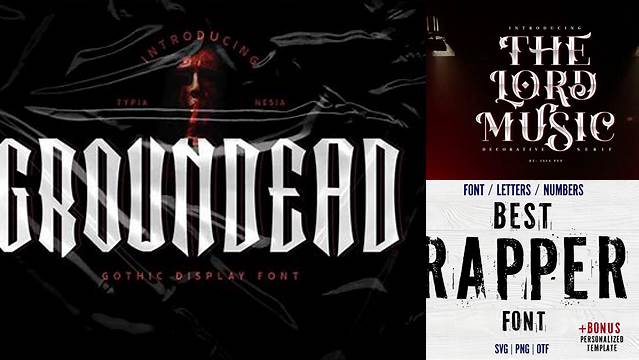
Coolest Fonts For Rap Music Videos: Font Guide
Hey guys! Ever wondered what makes a rap music video pop? It's not just the beats and rhymes; it's also about the visuals, and fonts play a huge role in that. Choosing the right font can make your video look professional, edgy, or just plain awesome. Let's dive into the world of rap music video fonts and see what makes them tick. We're going to cover everything from classic choices to the latest trends, so you'll be ready to pick the perfect font for your next banger.
Why Fonts Matter in Rap Music Videos
Fonts might seem like a minor detail, but trust me, they're not. The fonts you choose set the tone and mood of your video. A bold, aggressive font can amplify the energy of a hard-hitting track, while a sleek, modern font can complement a more sophisticated vibe. Think about it: the right font can make your lyrics hit harder, your visuals look cleaner, and your overall message resonate better with your audience. Plus, let's be real, nobody wants to see a killer rap video with a wimpy, uninspired font. It's like showing up to a battle with a butter knife – not a good look! So, pay attention to your fonts, guys. They can make or break your video.
Best Fonts for a Hip-Hop Aesthetic
When it comes to hip-hop, certain fonts just scream authenticity. Think about the classic graffiti fonts, the bold sans-serifs, and the gritty, textured typefaces. These fonts have been used in countless iconic rap videos and album covers, and they continue to be a go-to choice for artists looking to capture that raw, streetwise energy. We're talking about fonts that feel like they were ripped straight from a subway wall or a boombox. They're bold, unapologetic, and full of attitude. Some great examples include Impact, Bebas Neue, and anything with a distressed or urban feel. These fonts instantly connect your video to the roots of hip-hop culture.
Graffiti Fonts: Capturing Street Art
Graffiti fonts are the OG of rap aesthetics, straight from the streets to your screen. They bring that raw, rebellious energy that hip-hop was built on. Think wildstyle, block letters, and dripping paint – these fonts aren't just text; they're art. When choosing graffiti fonts, consider how legible they are. You want something that looks cool but is still readable. Some popular choices include Ruthless, Subway Sign, and Urban Decay. Use these fonts for titles, artist names, or key lyrics to give your video that authentic street vibe. Remember, graffiti fonts are all about making a statement, so don't be afraid to go bold and expressive.
Bold Sans-Serif Fonts: Modern and Impactful
If you're aiming for a modern, impactful look, bold sans-serif fonts are your best friend. These fonts are clean, strong, and easy to read, making them perfect for conveying a clear message. Think of fonts like Bebas Neue, Montserrat, and Open Sans Extra Bold. They're versatile enough to work in a variety of settings, from title cards to lower thirds. The key is to choose a font that's both visually appealing and highly legible, ensuring your audience can easily grasp your message. Bold sans-serif fonts are also great for creating a sense of authority and confidence, which is perfect for tracks with a powerful message.
Distressed and Textured Fonts: Adding Gritty Realism
To add a touch of gritty realism to your rap video, distressed and textured fonts are the way to go. These fonts look like they've been through the wringer, with rough edges, faded textures, and imperfections that add character. They're perfect for conveying a sense of struggle, resilience, or authenticity. Think of fonts that look like they've been stamped, scratched, or weathered. Some great options include Stencil, Grungy, and Cracked. Use these fonts sparingly to highlight key words or phrases, creating a powerful visual impact.
Modern and Minimalist Fonts for Edgy Rap Videos
For those aiming for a sleek and edgy vibe, modern and minimalist fonts are the perfect choice. These fonts are all about simplicity, clean lines, and understated elegance. Think of fonts like Helvetica, Arial, and Futura. They're versatile enough to work in a variety of contexts and can create a sense of sophistication and confidence. Use them for artist names, titles, or lower thirds to give your video a polished and professional look. The key is to choose a font that's both visually appealing and highly legible, ensuring your message comes across clearly.
Choosing Fonts for Different Rap Subgenres
Rap isn't just one thing; it's a diverse genre with tons of subgenres, each with its own unique vibe. The fonts you choose should reflect that. For trap music, think bold, futuristic fonts that capture the genre's high-energy, electronic sound. For conscious rap, consider clean, legible fonts that emphasize the lyrical content. For old-school hip-hop, go with classic graffiti fonts or bold sans-serifs that pay homage to the genre's roots. The key is to match the font to the overall aesthetic of the music.
Trap Music Fonts: High-Energy and Futuristic
Trap music demands fonts that are as high-energy and futuristic as the music itself. Think bold, geometric fonts with sharp angles and a sense of motion. These fonts should feel like they're pulsating with the beat, capturing the genre's aggressive and electronic sound. Some great choices include Montserrat Black, Bebas Neue, and anything with a futuristic or tech-inspired design. Use these fonts for titles, artist names, or key lyrics to give your video that cutting-edge trap vibe.
Conscious Rap Fonts: Emphasizing Lyrical Content
When it comes to conscious rap, the focus is on the lyrics, so your fonts should be clean, legible, and easy to read. Think classic serif fonts like Times New Roman or Garamond, or simple sans-serif fonts like Arial or Helvetica. The goal is to make the words stand out, not distract from them. Avoid anything too flashy or decorative. Choose a font that's both professional and understated, allowing your message to take center stage.
Choosing the right fonts for your rap music video is a crucial step in creating a visually stunning and impactful product. By considering the tips and guidelines outlined in this article, you can make informed decisions and create videos that truly stand out. Good luck, and happy designing!